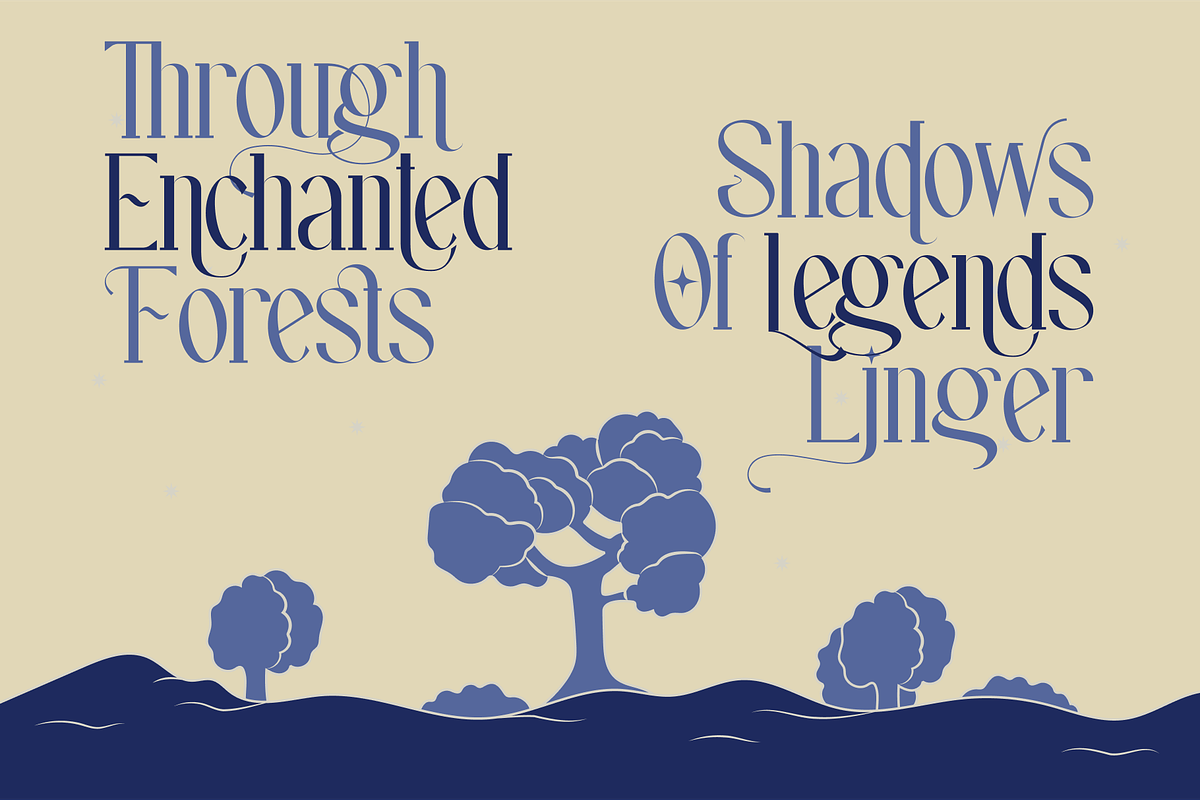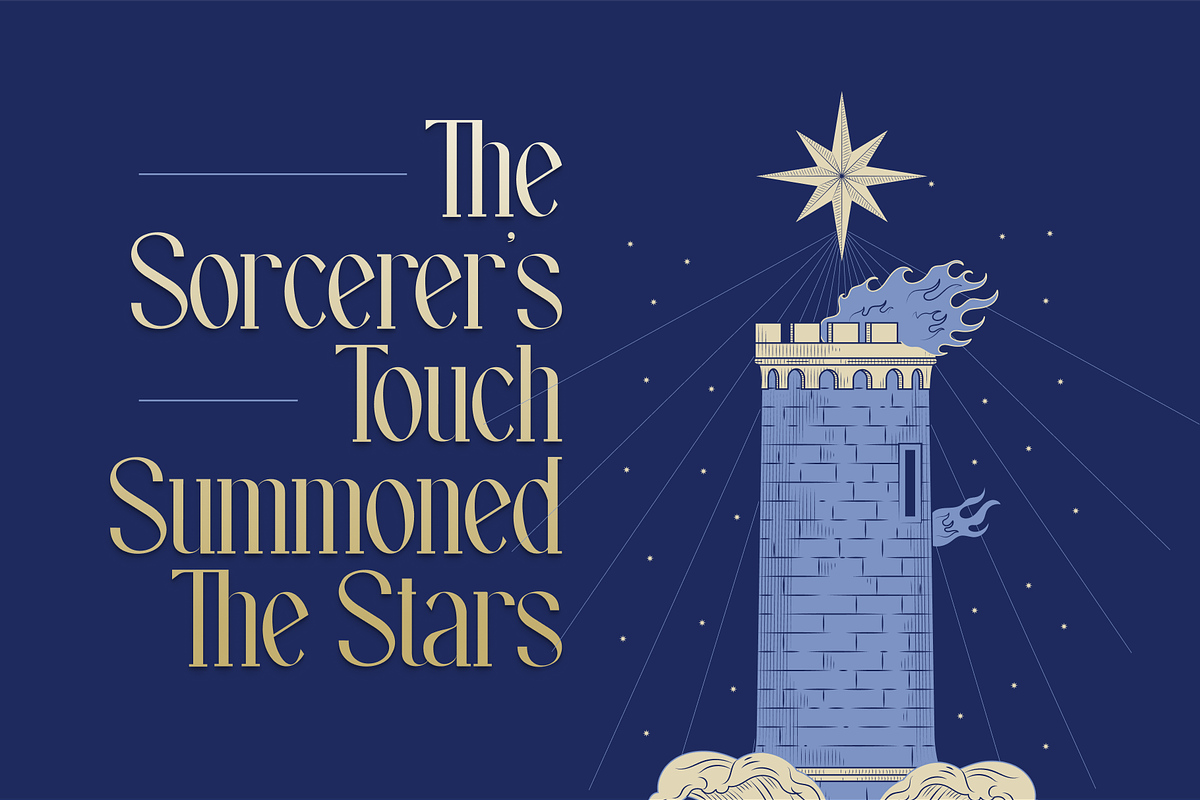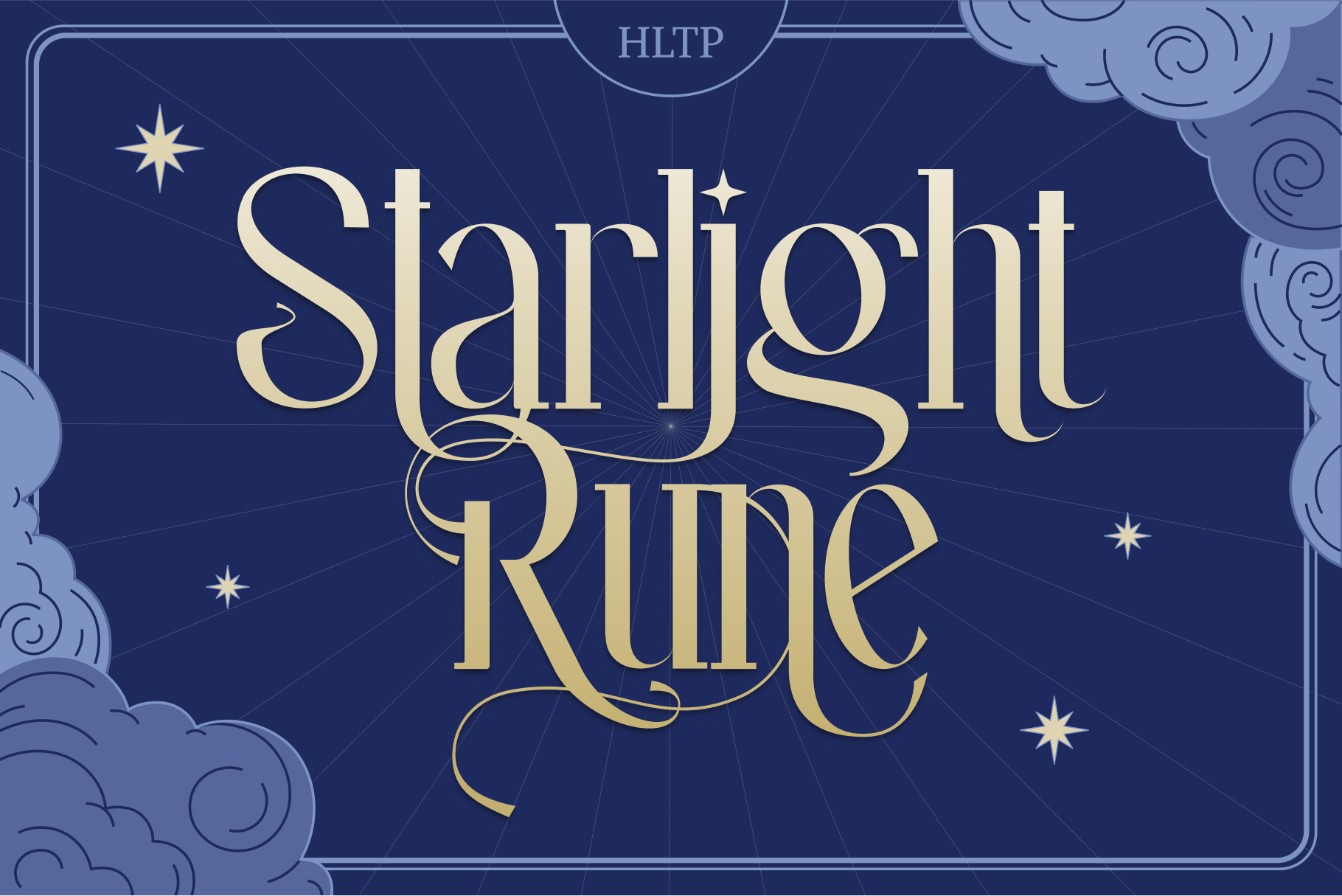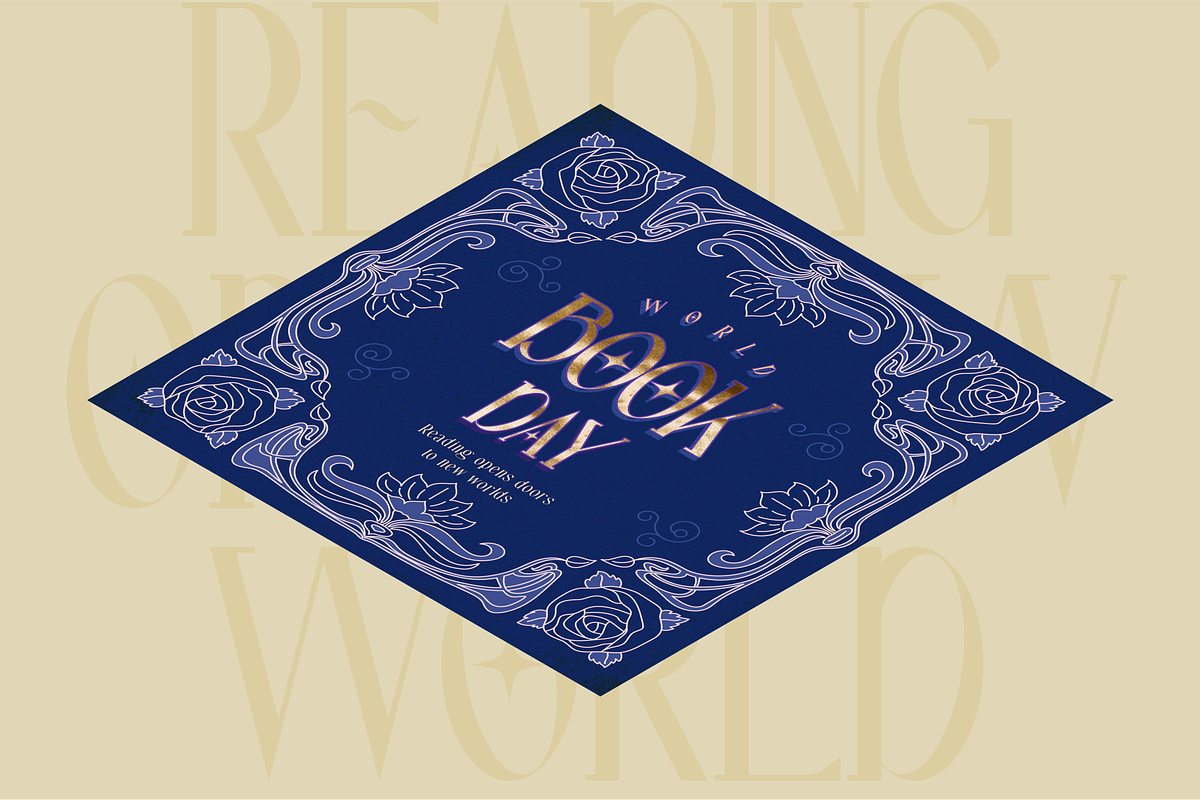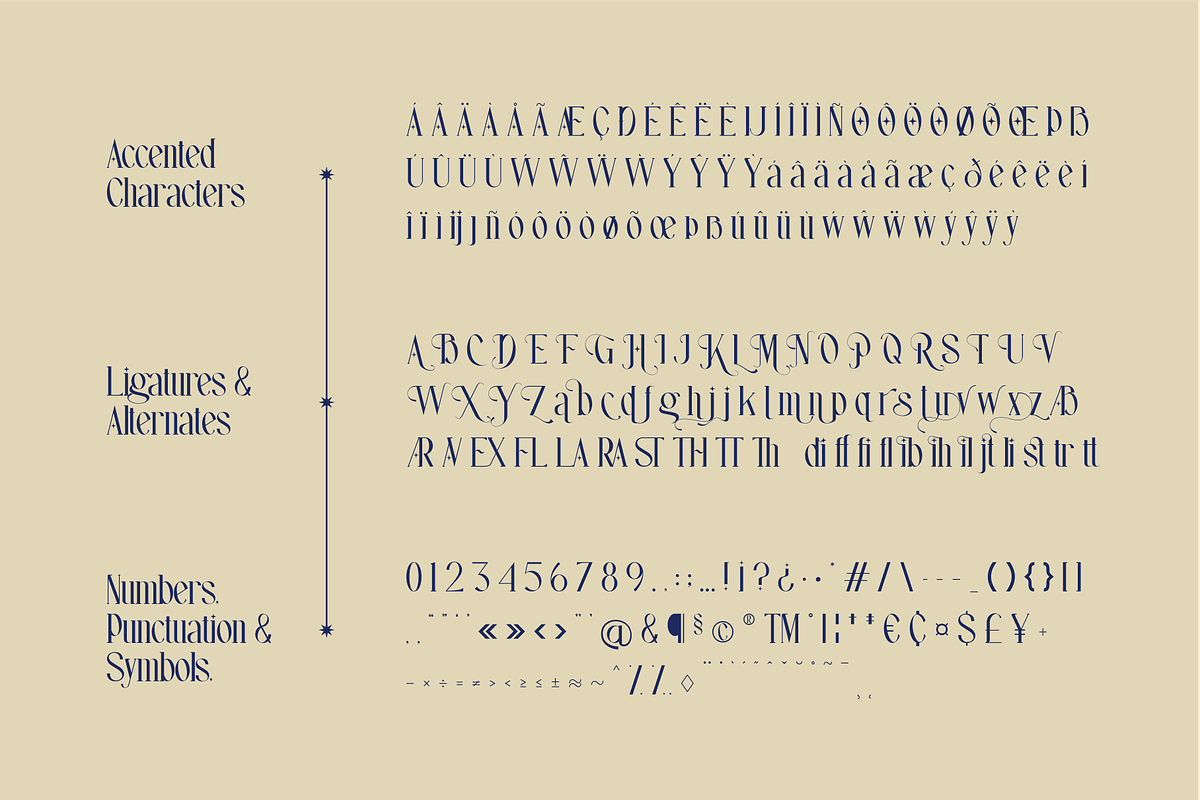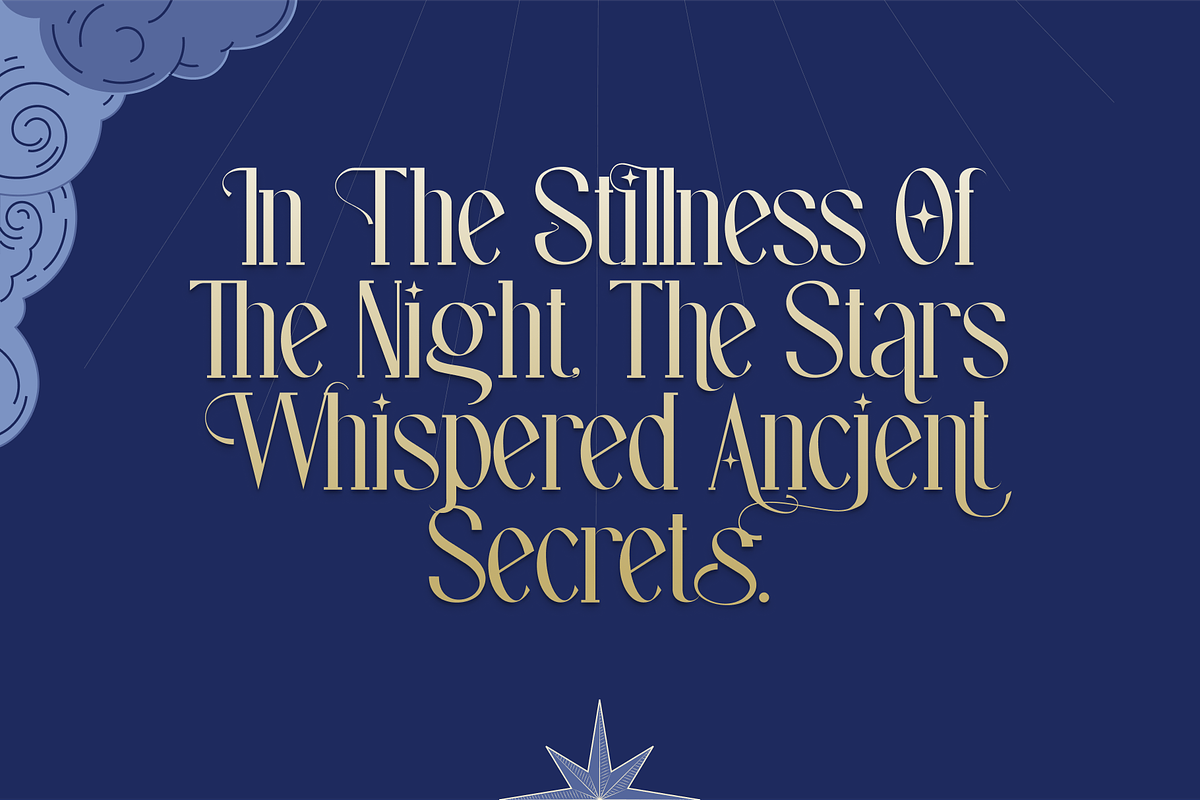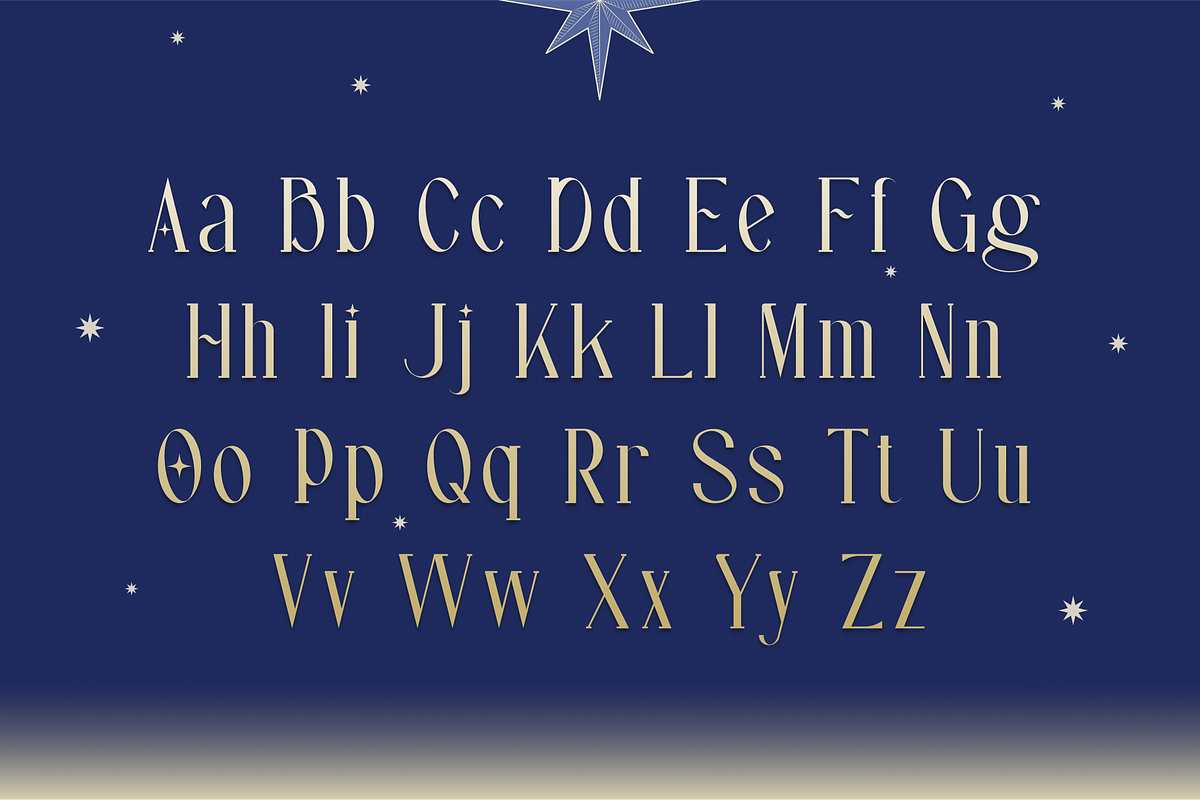
Starlight Rune: A Magical Typeface
Step into a world of enchantment with Starlight Rune, a mesmerizing display typeface that brings the essence of magic and fantasy to your designs. Featuring elegant curves and intricate details, this font is perfect for any project that demands a touch of wonder. Whether you’re crafting invitations, posters, or fantasy book covers, Starlight Rune will cast a spell on your audience and transport them to a mystical realm. Let your creativity shine with its regular and alternate glyphs, designed to elevate your projects to the next level.
- ligature and alternates feature